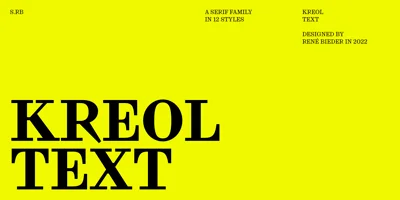
Kreol Text Font
Kreol Text Font is ideal for multicultural design projects including Caribbean cultural centers, Creole language publications, multicultural education programs, fusion cuisine restaurants, Caribbean tourism campaigns, cultural diversity organizations, heritage preservation societies, and cross-cultural communication initiatives. This vibrant typeface works perfectly for Caribbean festivals, Creole language schools, multicultural community centers, fusion music venues, and projects that celebrate the rich linguistic heritage and cultural fusion of Creole communities worldwide.
What makes Kreol Text Font exciting is its dynamic multicultural character that perfectly captures the essence of Creole linguistic diversity and cultural fusion. The font features expressive letterforms with cultural blend styling that reflects the vibrant mixing and creative evolution of languages and cultures in Creole societies. Its fusion design elements embody the spirit of cultural diversity and linguistic creativity, making it perfect for projects that need to convey vibrancy, diversity, and connection to Creole heritage. The carefully crafted multicultural proportions create an atmosphere of cultural sophistication and linguistic authenticity.
Kreol Text Font comes in multiple family variations including cultural, diverse, fusion, and heritage styles. Each weight maintains the distinctive Creole character while offering different levels of cultural intensity and multicultural presence. The font family includes cultural alternates, fusion ligatures, and heritage variations that provide designers with comprehensive options for creating truly vibrant and authentically multicultural typographic compositions that celebrate Creole excellence.
Whether you're designing cultural branding, creating multicultural marketing materials, or developing heritage promotional graphics, Kreol Text Font provides the perfect typographic foundation for projects that celebrate Creole excellence and multicultural sophistication. This remarkable typeface transforms ordinary text into compelling expressions of cultural wisdom and linguistic diversity. Download this vibrant font today and enrich your design projects with the Creole authenticity and multicultural energy that captures the essential spirit of cultural fusion and linguistic heritage.